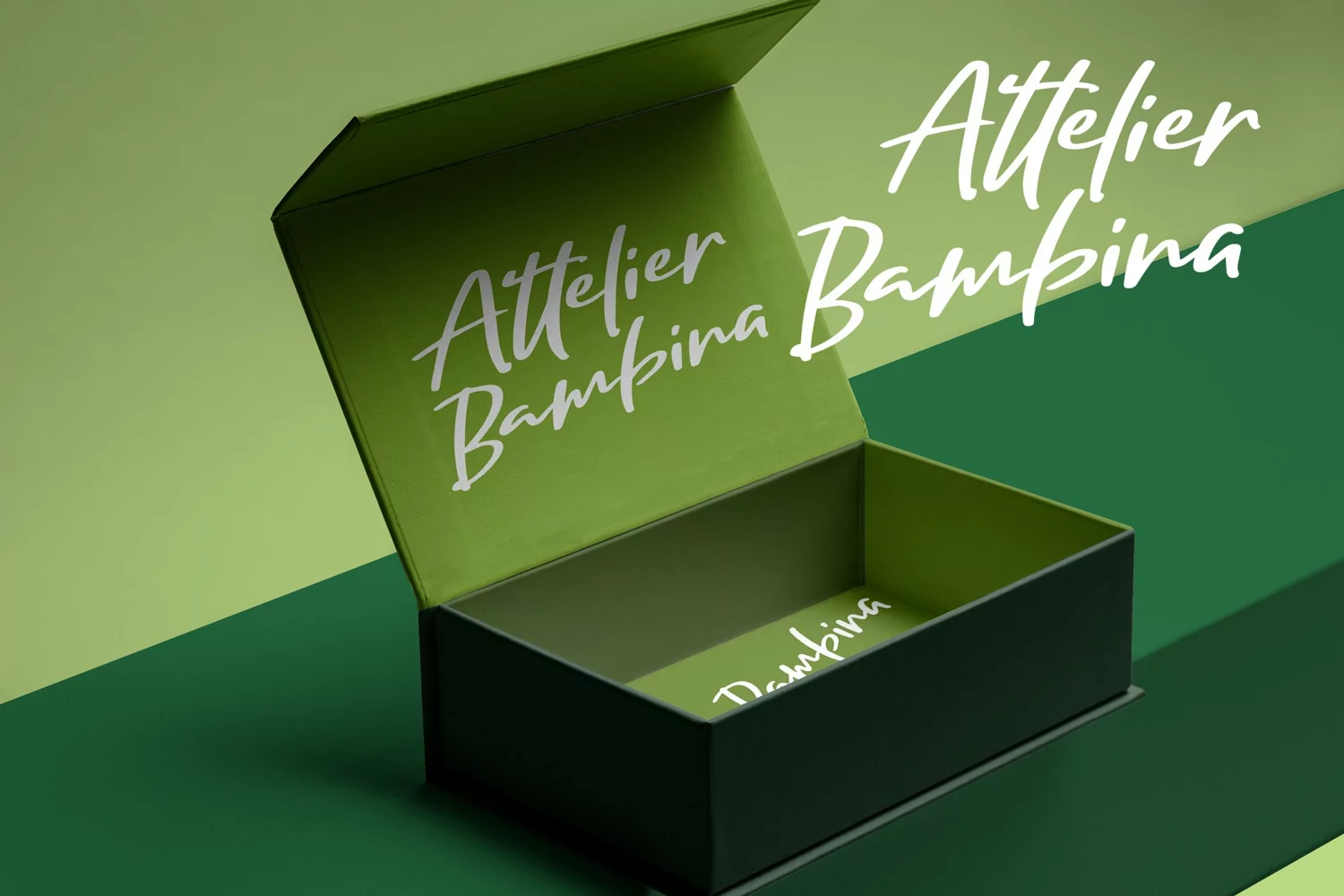
Florette - Handrawn Script Font that contain lowercase, uppercase, symbol, and also support multi language. There’s a lot ligatures in this font. This Font also comes with ligatures, alternates and many more. this font suitable for fashion, branding, catalog and other design what you want.
Florette